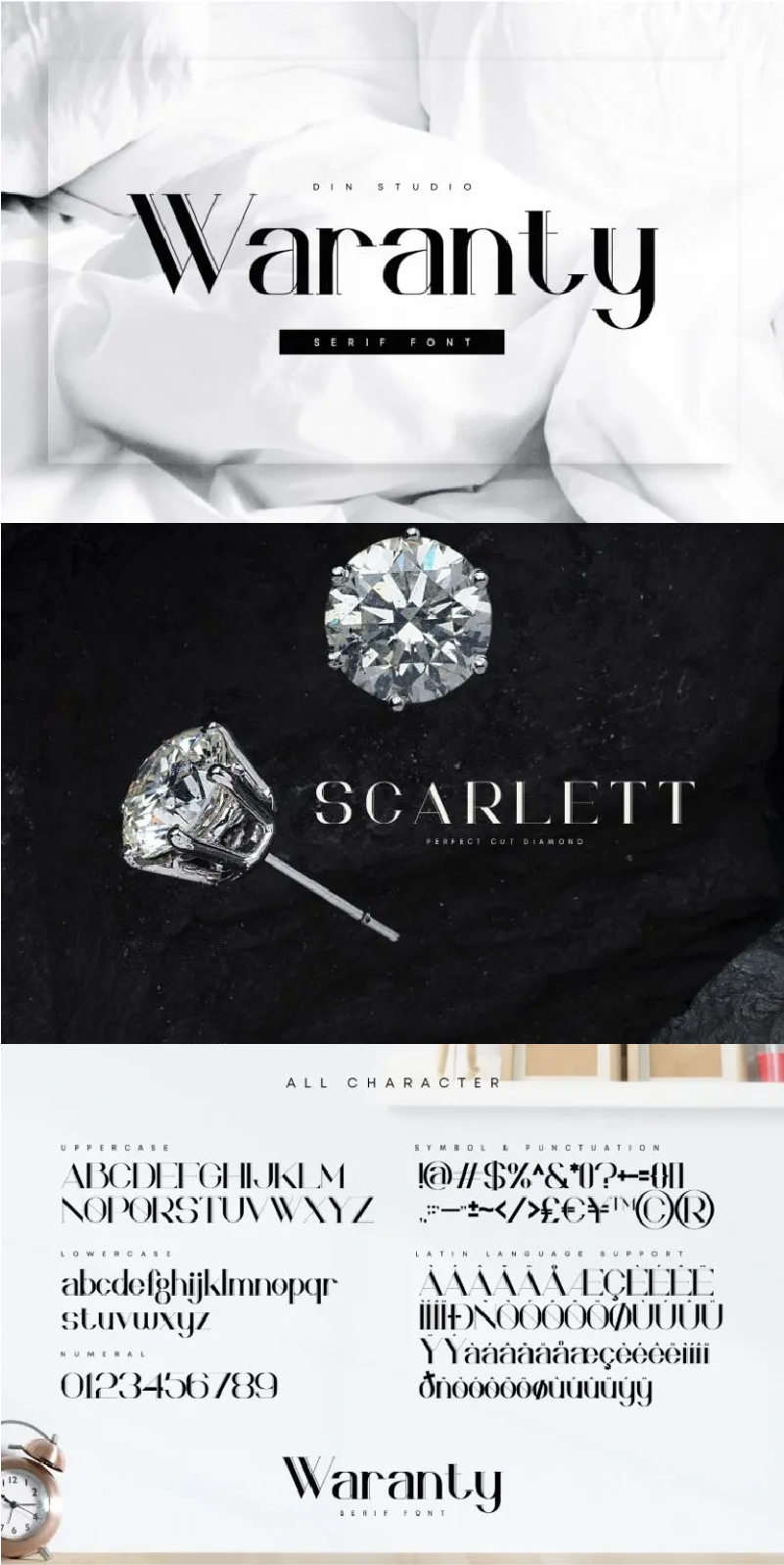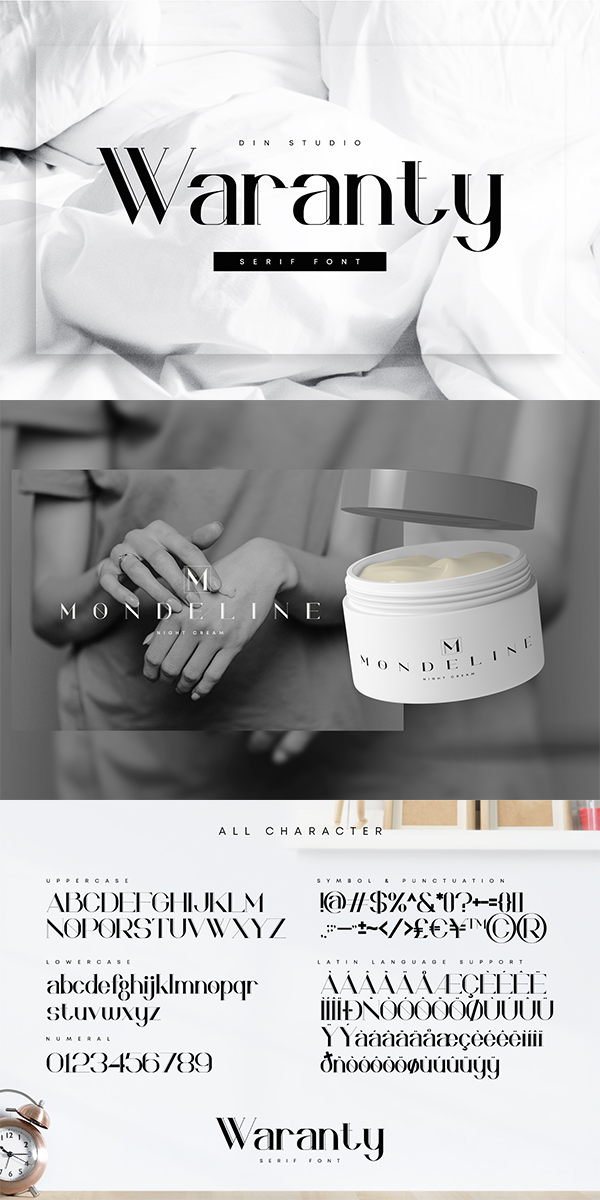
Waranty Font
About Waranty
Waranty is an elegant serif font made for any professional project brandings which is best used for logos, brandings, and quotes. Every letter has a unique and beautiful touch. See the previews above to get some inspiration on how you can use them. Happy Designing!